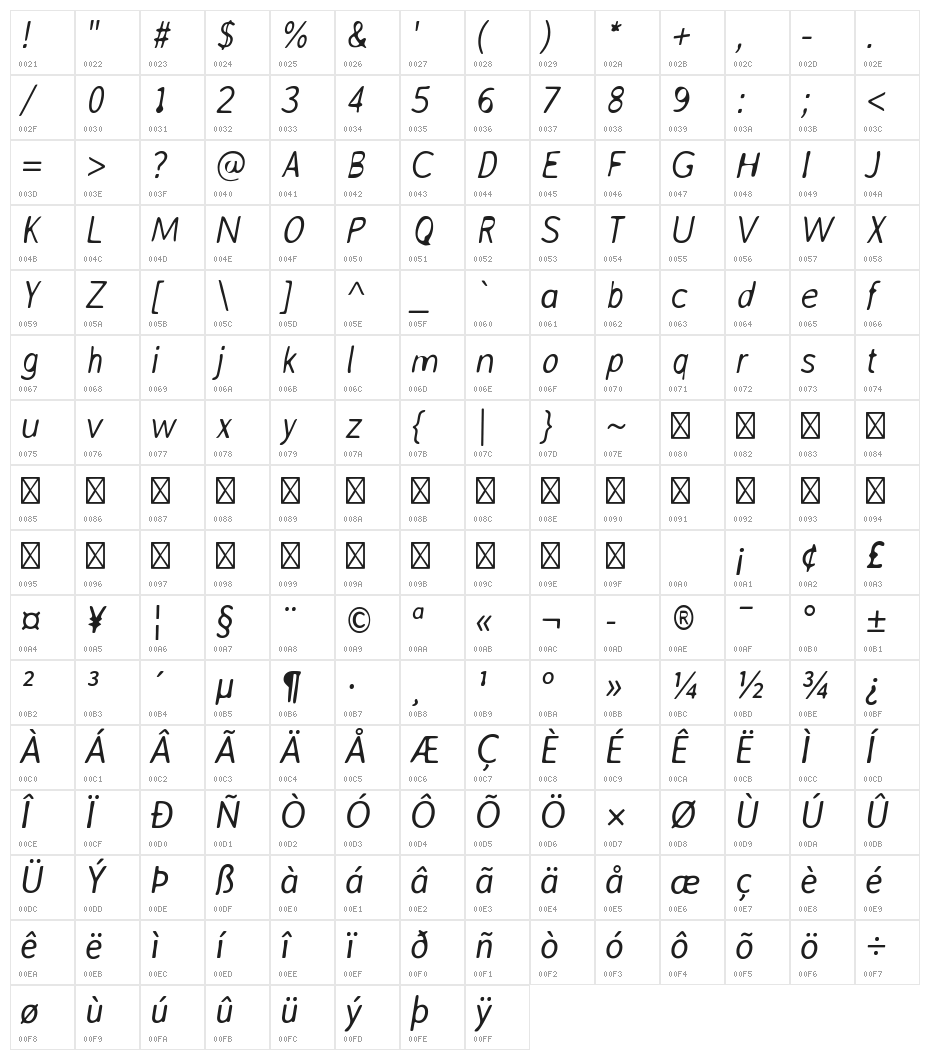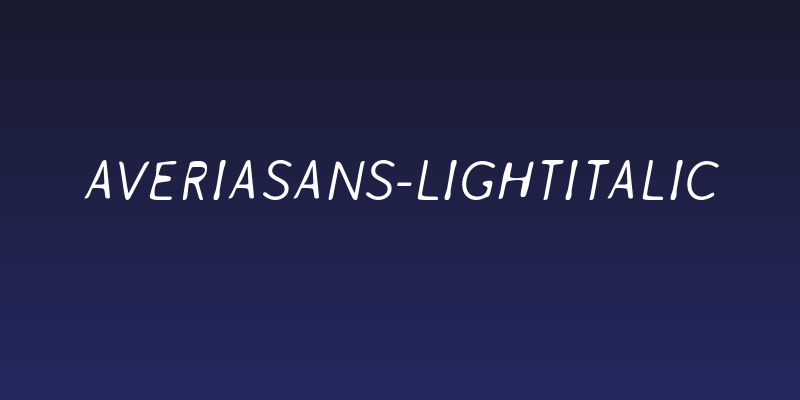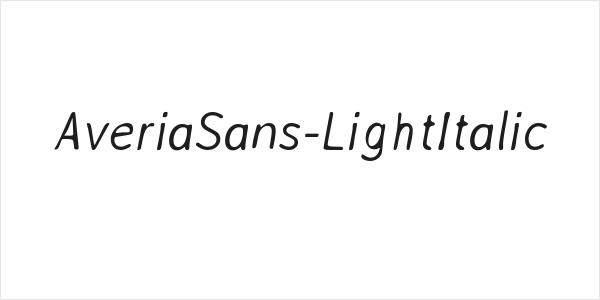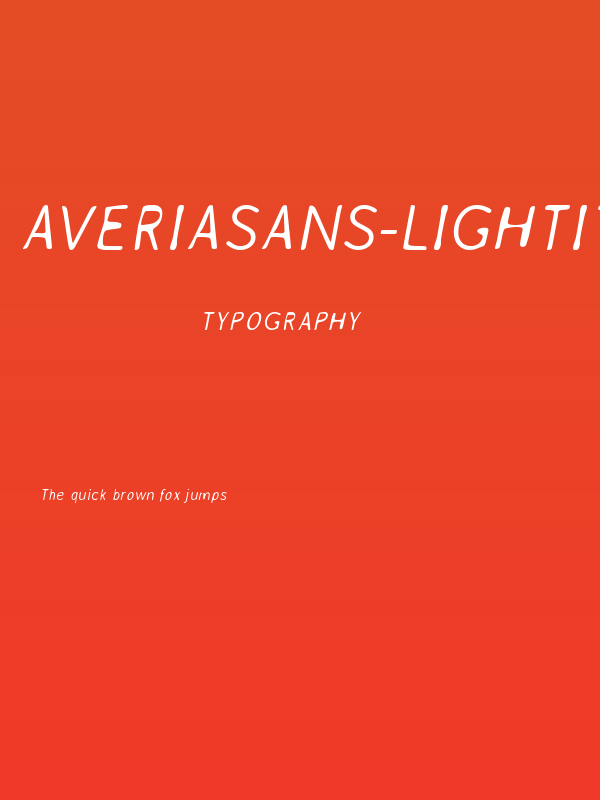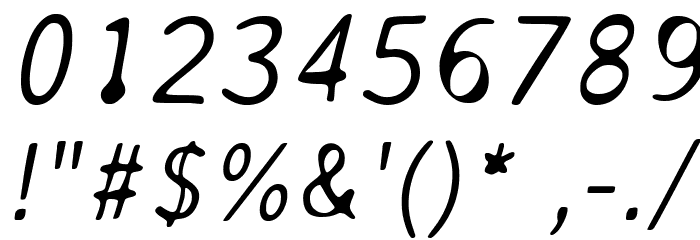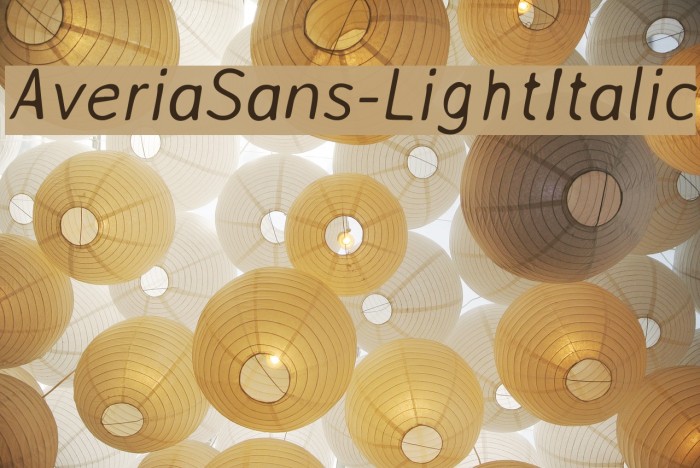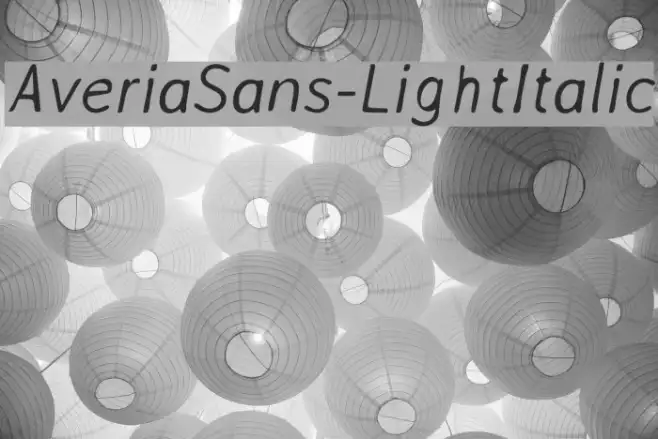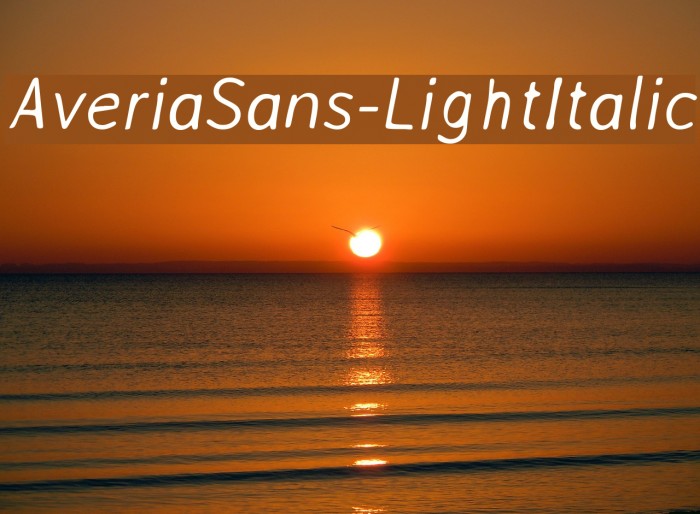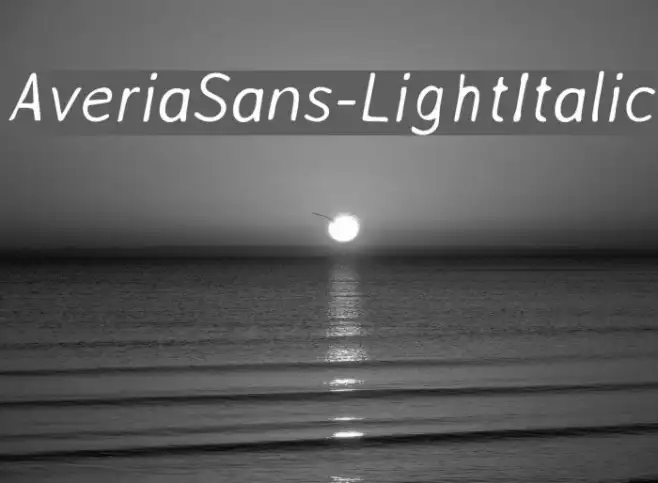
AveriaSans-LightItalic Font
AveriaSans-LightItalic Description
This font features a smooth, flowing design with a slightly slanted orientation, giving it an elegant and approachable appearance. The characters are well-rounded with a consistent stroke width, providing a harmonious and balanced look. The lowercase letters have a gentle curve, while the uppercase letters maintain a clean, straightforward form. The numerals are clear and easy to read, complementing the overall style. Special characters are thoughtfully designed, maintaining the font's cohesive aesthetic. This font's light weight and italic style add a touch of sophistication, making it versatile for various design needs.
| Use Case | Headlines, Body text, Logos |
| Proposed Projects | Ideal for projects requiring a friendly yet elegant touch, such as invitations, greeting cards, or branding materials. |